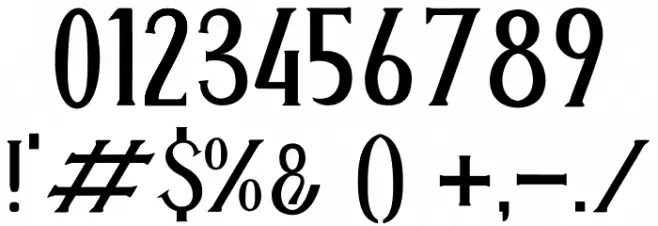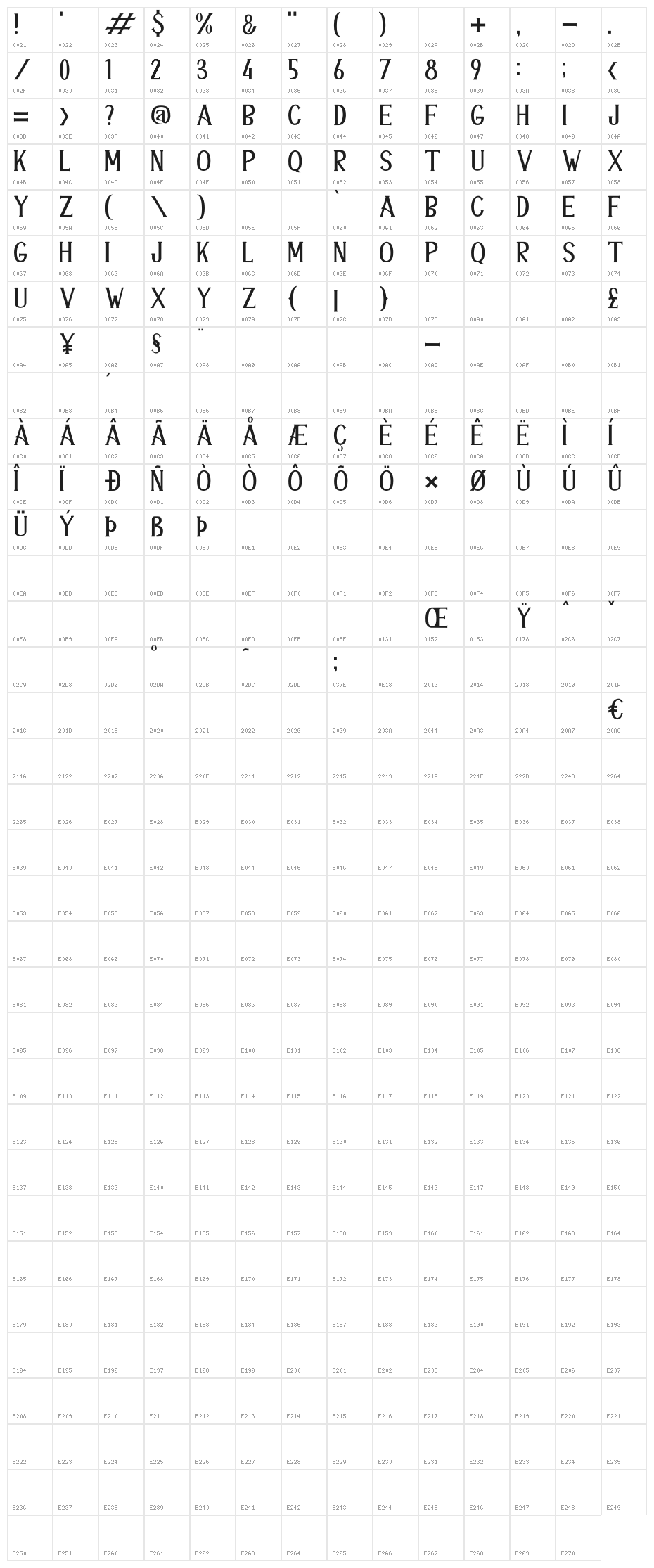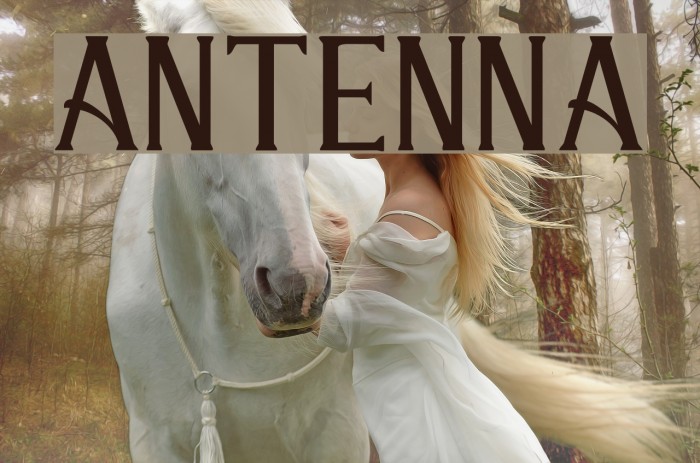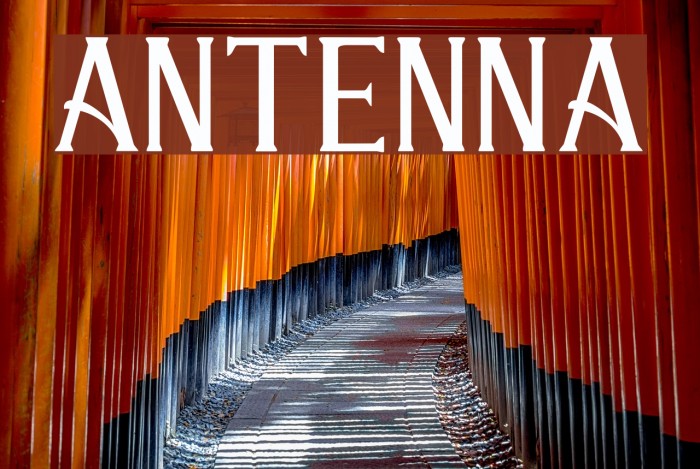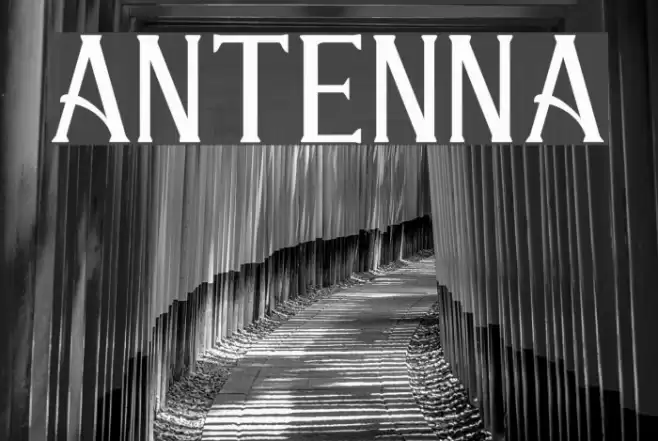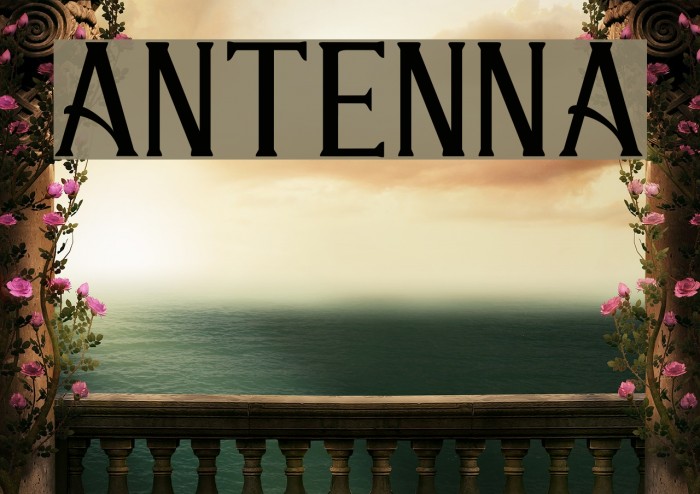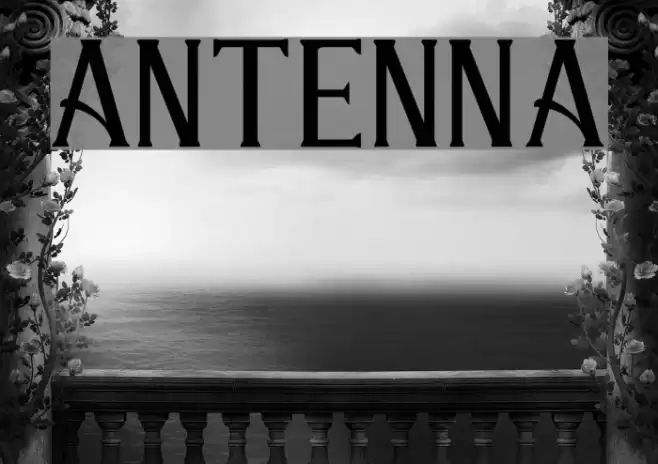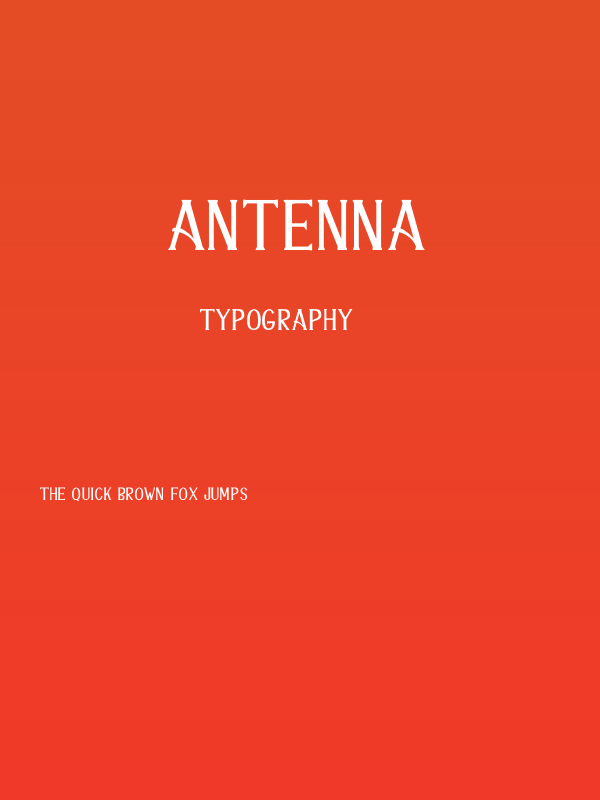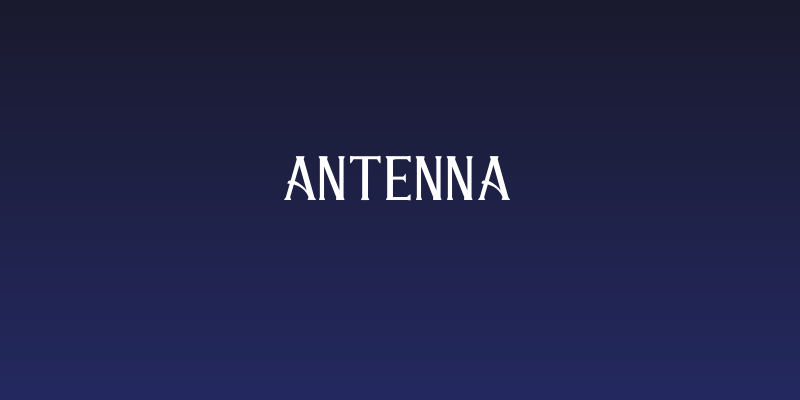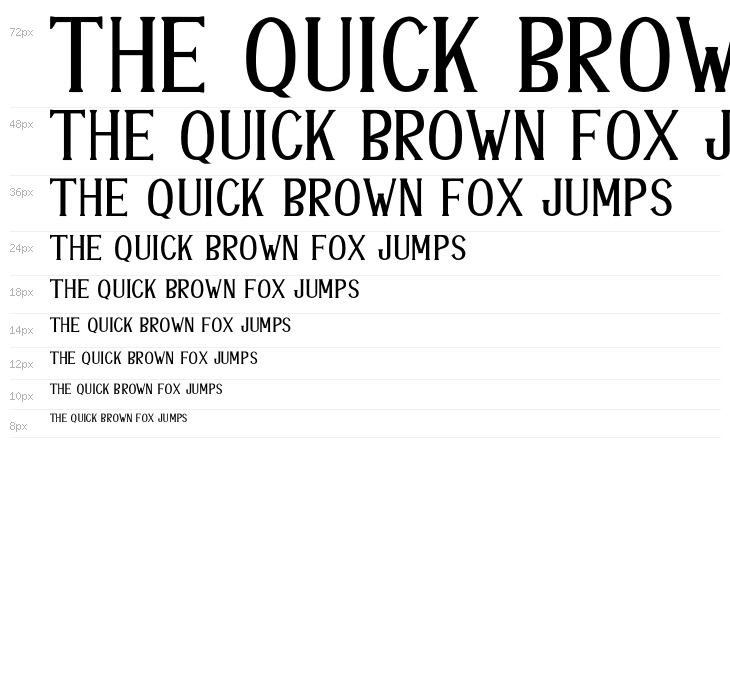
ANTENNA Font
ANTENNA Description
This font features a bold and striking design with a modern twist. The uppercase letters have a distinct geometric influence, with sharp angles and clean lines that give it a contemporary feel. The lowercase letters maintain a consistent style, offering a balance between readability and aesthetic appeal. The numerals are bold and easily distinguishable, making them suitable for various applications. Special characters are designed with the same attention to detail, ensuring a cohesive look across all glyphs. The overall appearance is both professional and stylish, making it ideal for projects that require a strong visual impact.